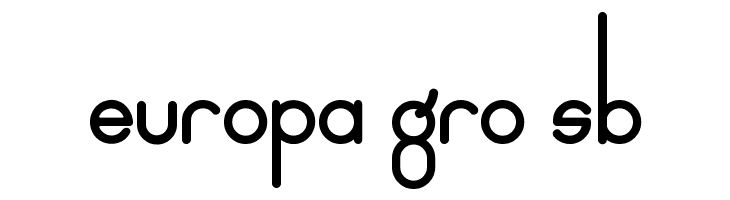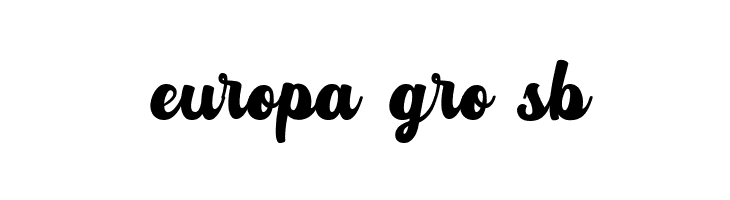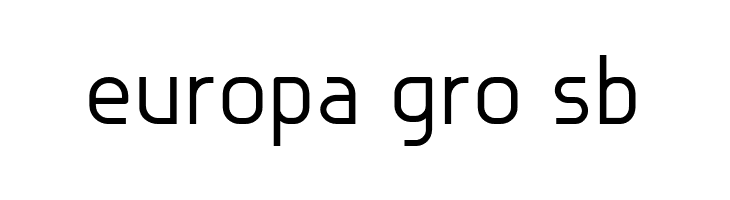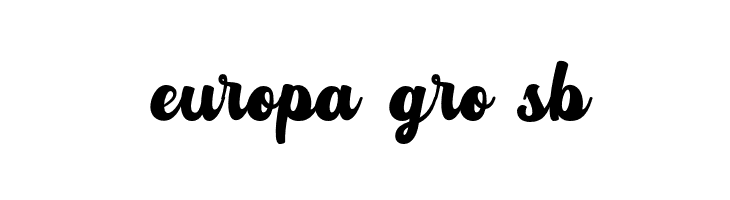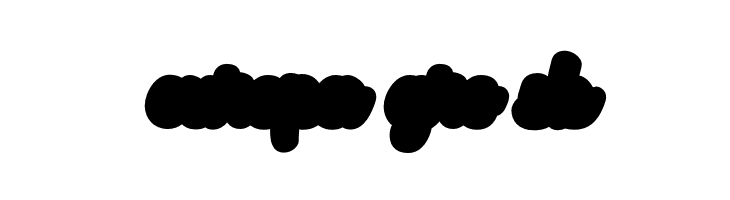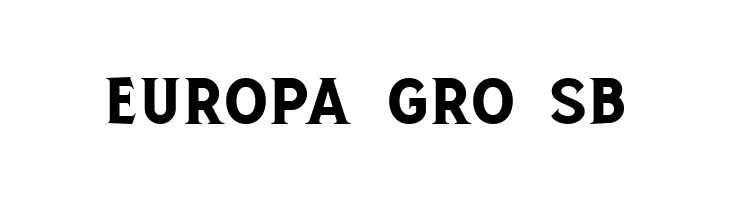
An elegant, cursive handwritten font with flowing, interconnected strokes.
A bold, decorative font with elegant swashes and a classic-modern appeal.
A modern, geometric sans-serif font with a clean and professional appearance.
A modern, geometric font with tall, narrow uppercase letters and balanced lowercase characters.
A bold, expressive script font with a flowing, handwritten style.
A bold, expressive script font with smooth curves and dynamic swashes.
A bold, playful font with a heavy, extruded style and rounded edges.
A bold, playful font with a 3D extruded effect and rounded characters.
A bold, brush-style font with high contrast and dynamic strokes.